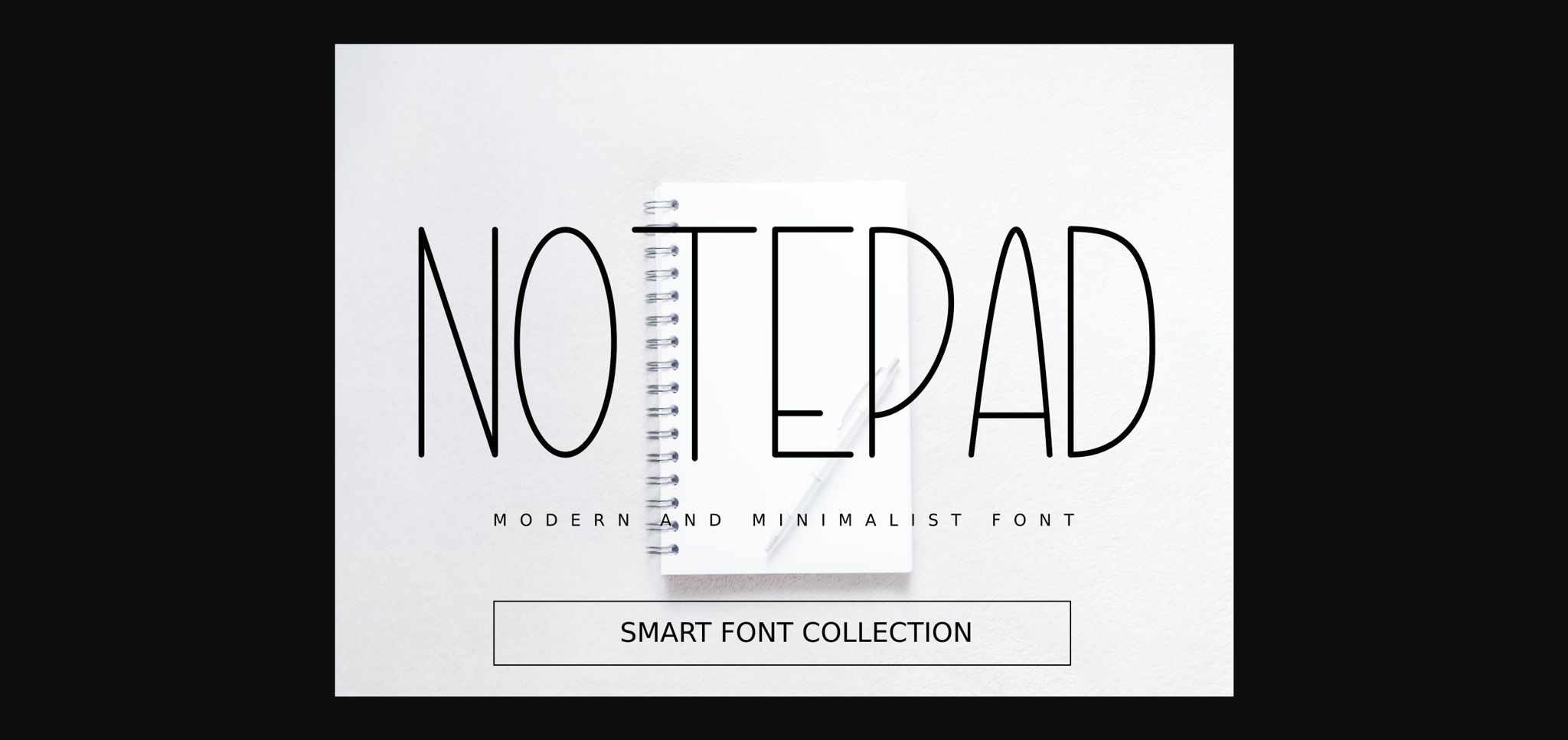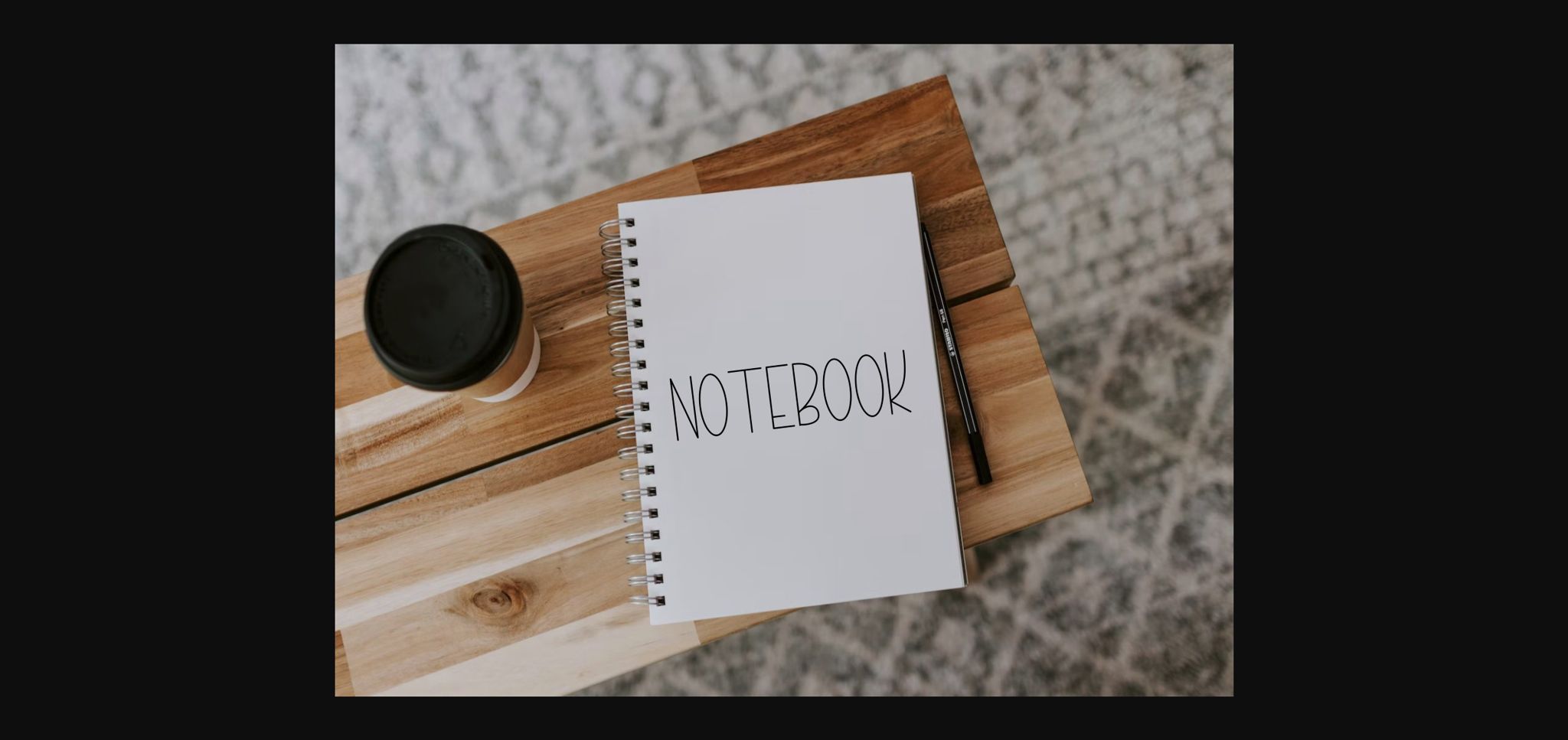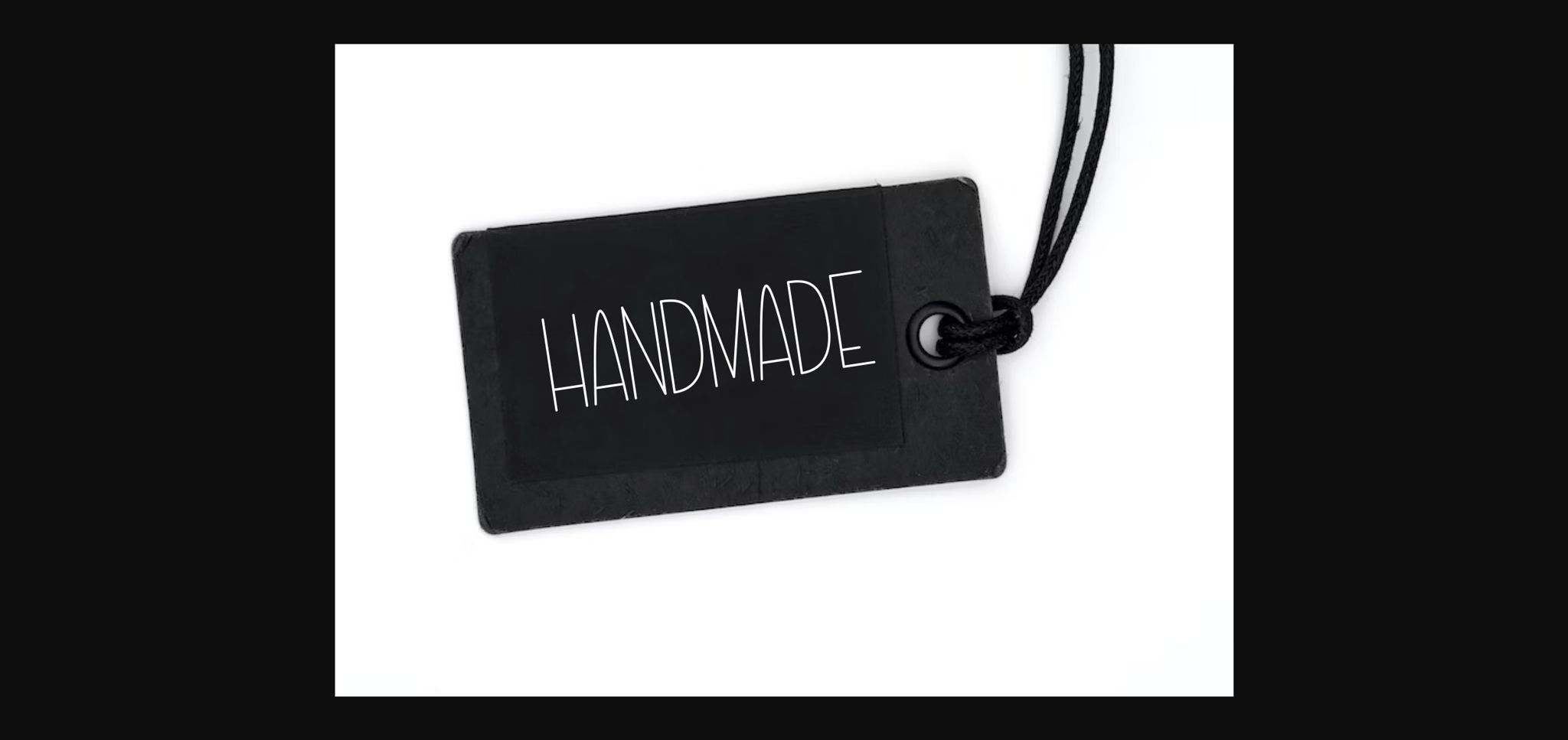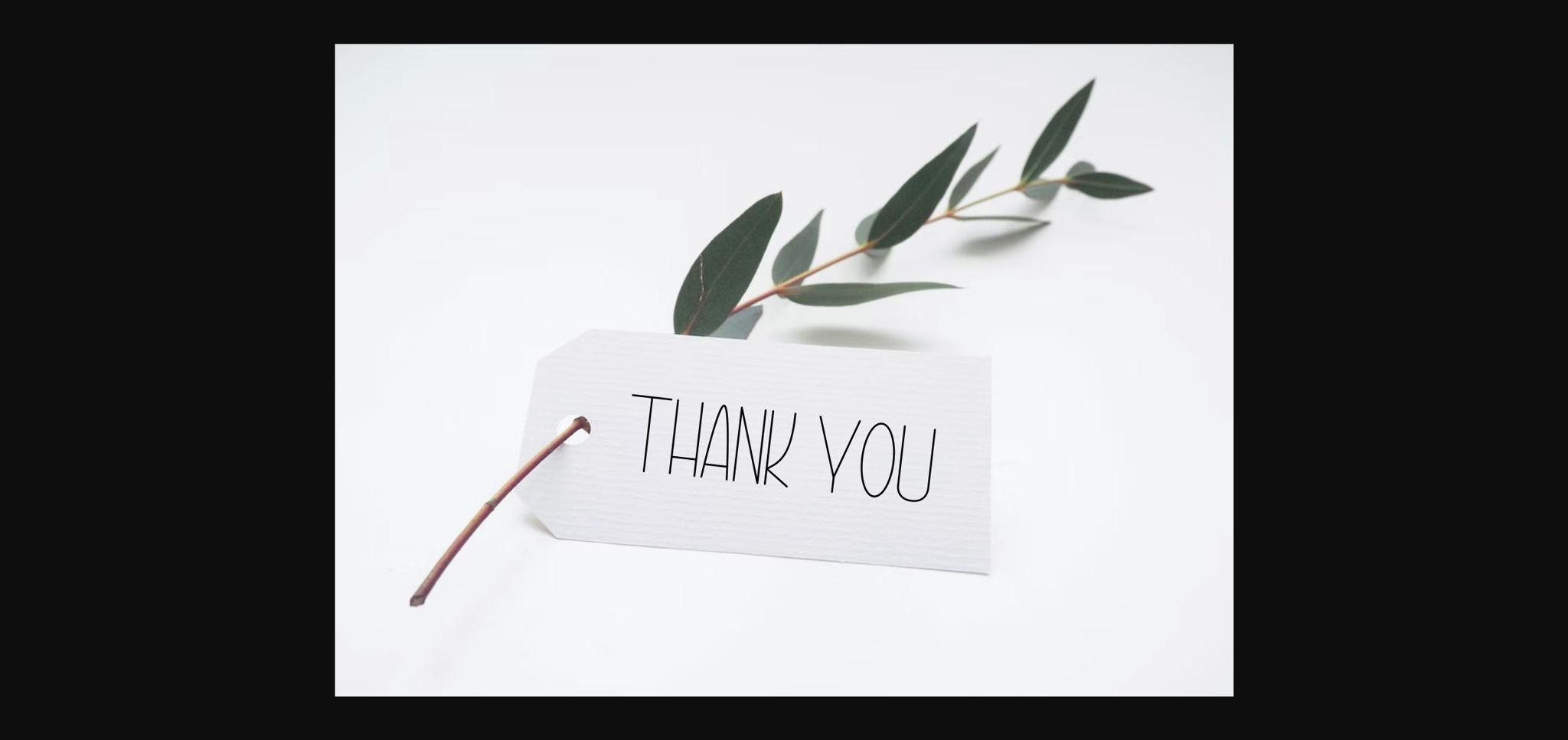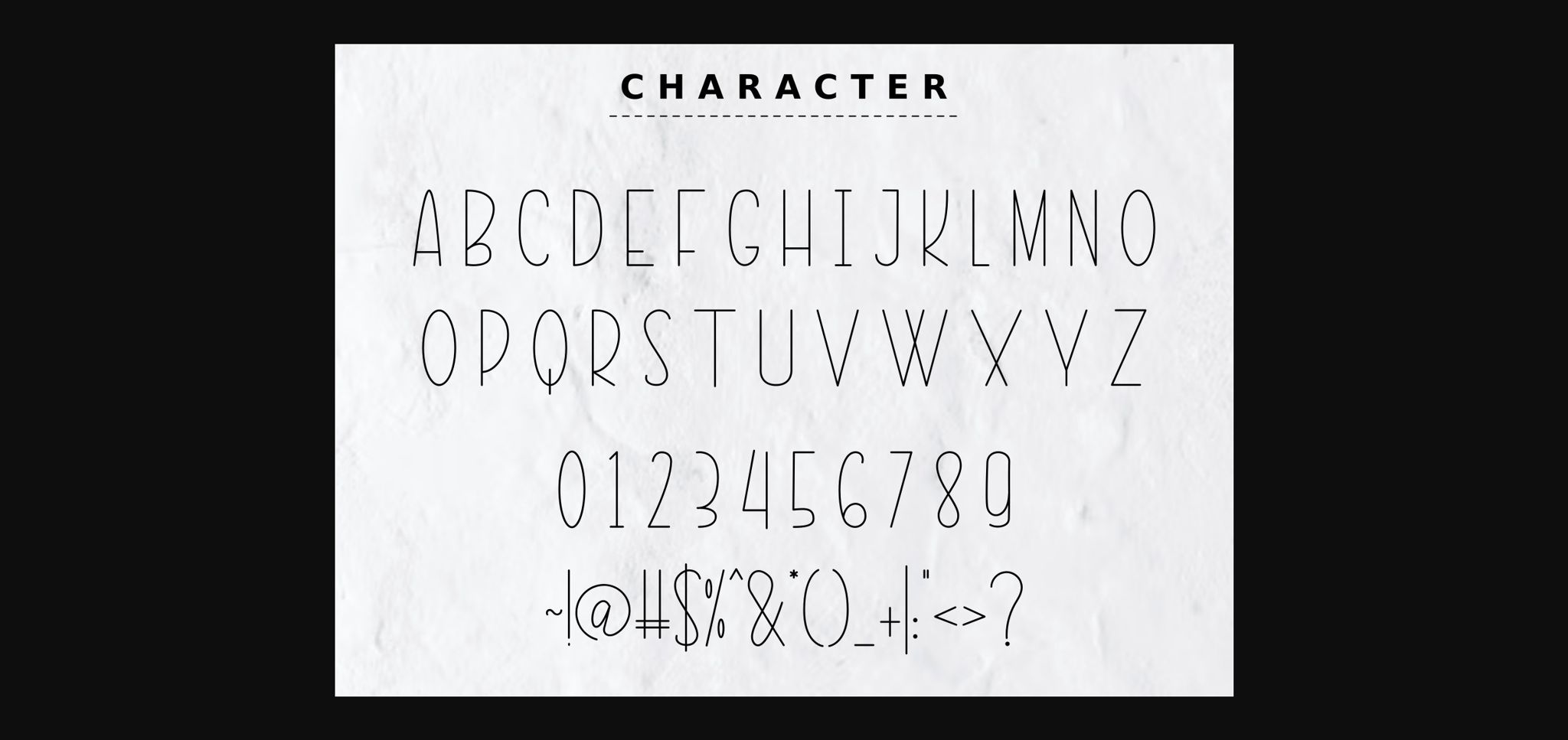
HomeSans Serif FontsNotepad Font Sans Serif Fonts Notepad Font FacebookXPinterestWhatsApp 1 of 7 ... Notepad Font Poster 2... Notepad Font Poster 3... Notepad Font Poster 4... Notepad Font Poster 5... Notepad Font Poster 6... Notepad Font Poster 7... About Notepad Font Notepad is a simple, clean, and neat sans serif font. No matter the topic, this font will be an incredible asset to your fonts’ library, as it has the potential to elevate any creation! DOWNLOAD NOW People also explored Apricots Font Perospero Font Rosegold Font Hulyts Font Messy Hand Font Esenka Font Bon Voyage Duo Font Inklijn The Smile Font 393 0 TagsNotepadNotepad Font Previous articleSugar Magic FontNext articleWhite Winter Font LEAVE A REPLY Cancel reply Comment: Please enter your comment! Name:* Please enter your name here Email:* You have entered an incorrect email address! Please enter your email address here Website: Save my name, email, and website in this browser for the next time I comment. Personal Use Free Turpentine Personal Use Free Read more about this font Relic Island 2 Personal Use Free Read more about this font Jelly Fish Personal Use Free Read more about this font Rise of Kingdom Personal Use Free Read more about this font BLOG Free vs Paid Fonts: Why Investing in Premium Fonts Is Worth It Free vs Paid Fonts: Why Premium Fonts Are Worth It in 2025 The debate of free vs paid fonts continues in the design world. While... Top 10 Handwritten Fonts That Elevate Your Designs How to Cut Any Font on Cricut: Convert a Font to SVG (Free) Transform Your Website: Elevate Your Typography with 7 Best Web Font Generators